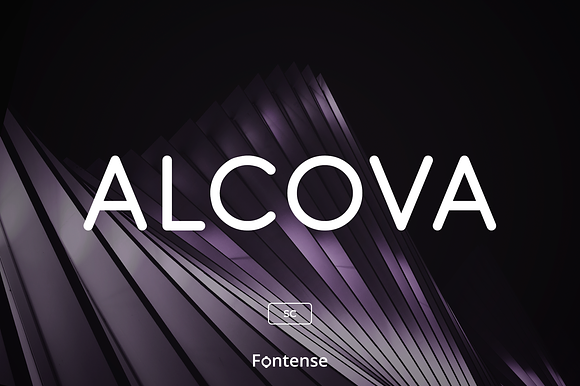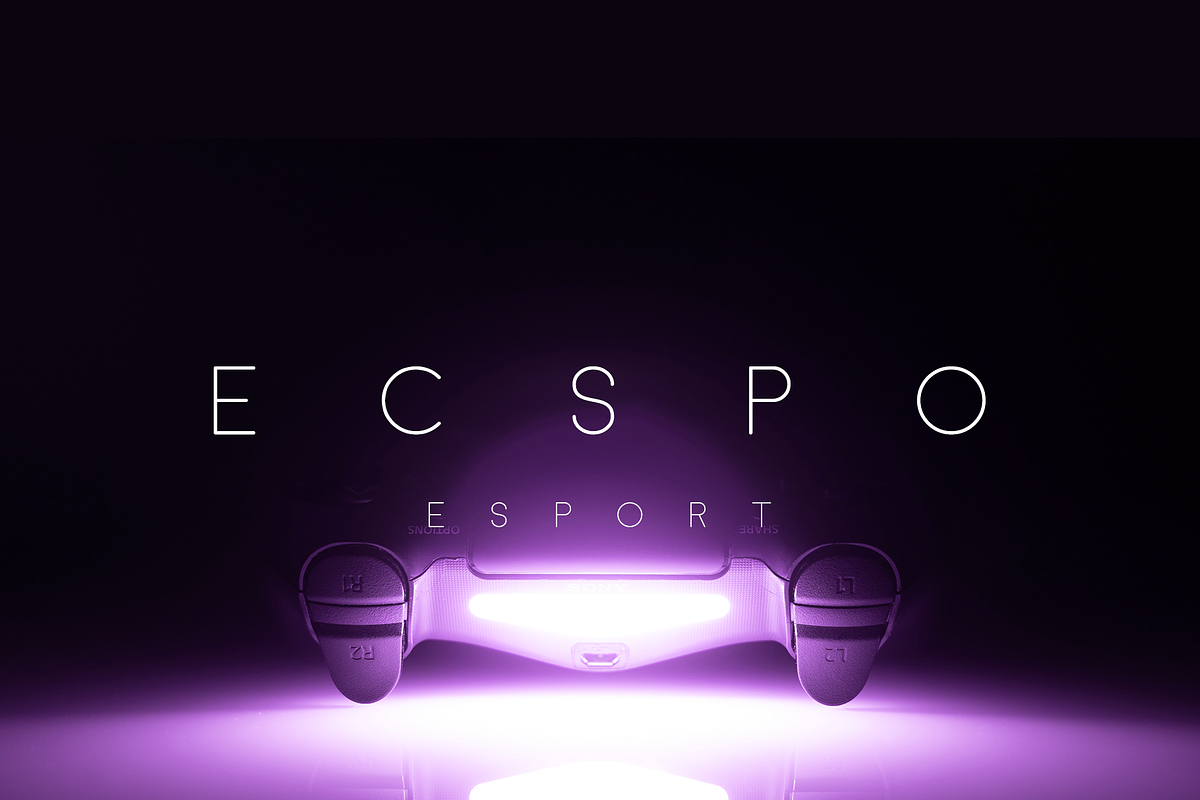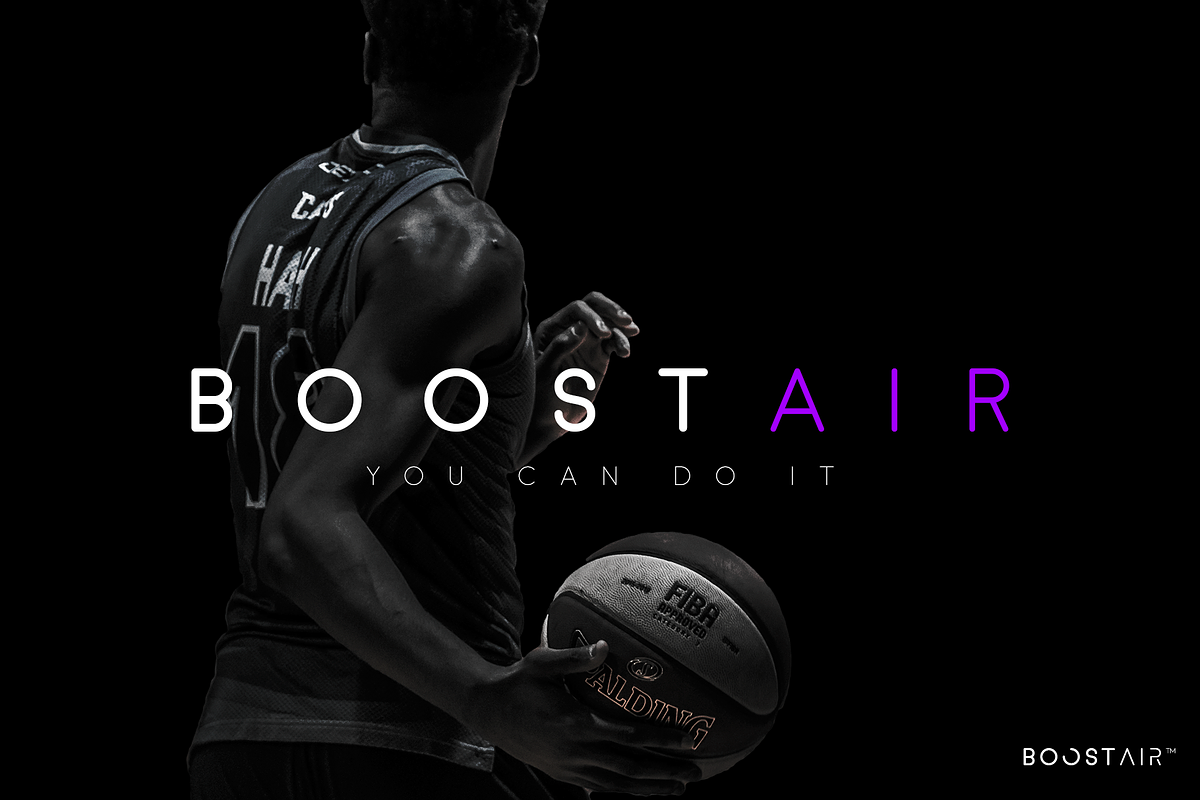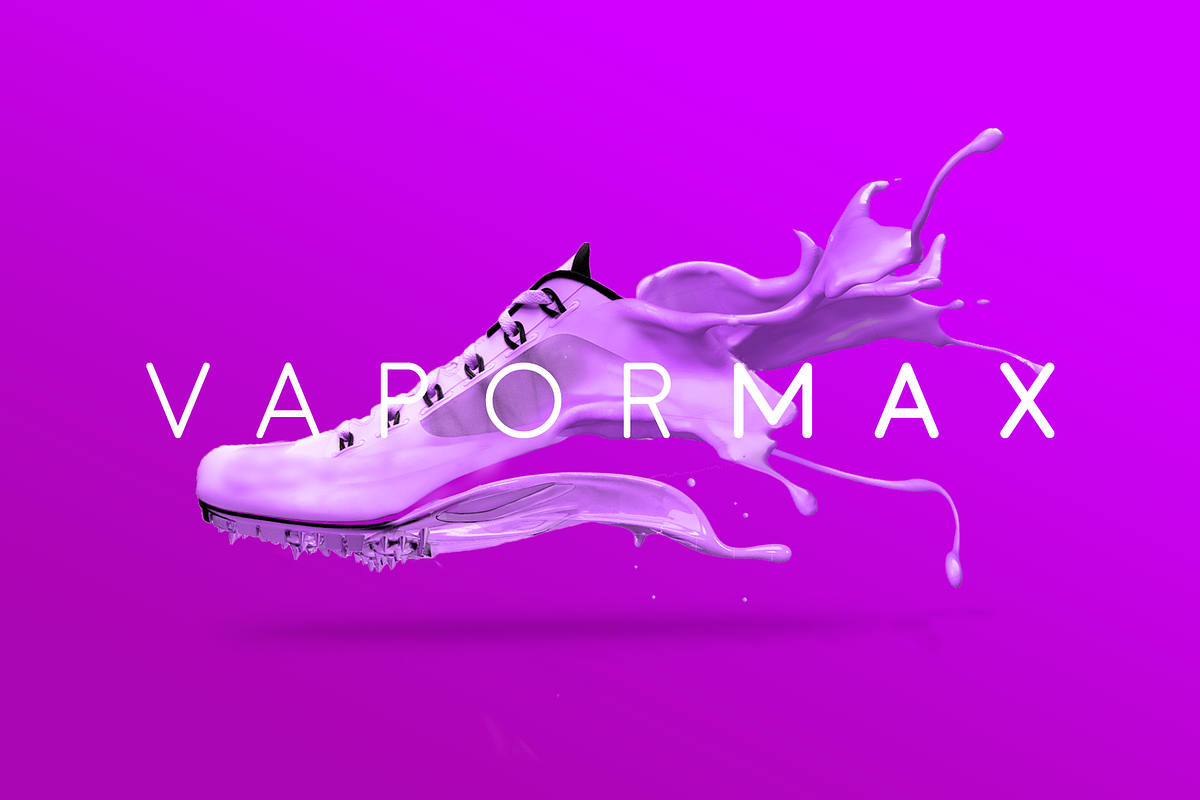
Alcova SC - Modern Rounded Font
Modern and futuristic, Alcova is a rounded display font, aimed on simple but recognizable design.
- Alcova SC Light
- Alcova SC Regular
- Alcova SC Bold